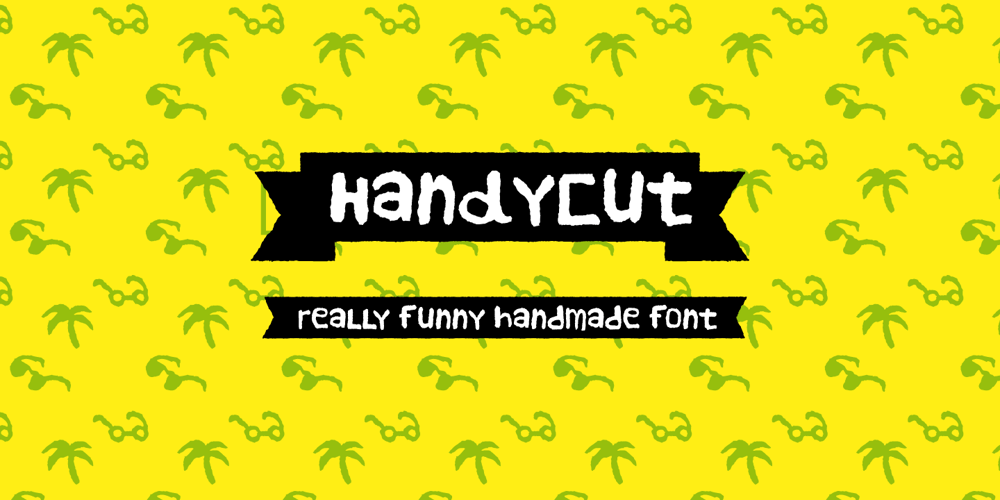
Handy Cut Font Family was designed by Patricia Vergara and published by Los Andes. Handy Cut contains 2 styles and family package options. Handy Cut is an experimental project inspired by paper cutting only using fingers, designed by Paty Bean from south Chilean farm. It includes dingbats and alternate characters to play with in expressive and irregular short texts.